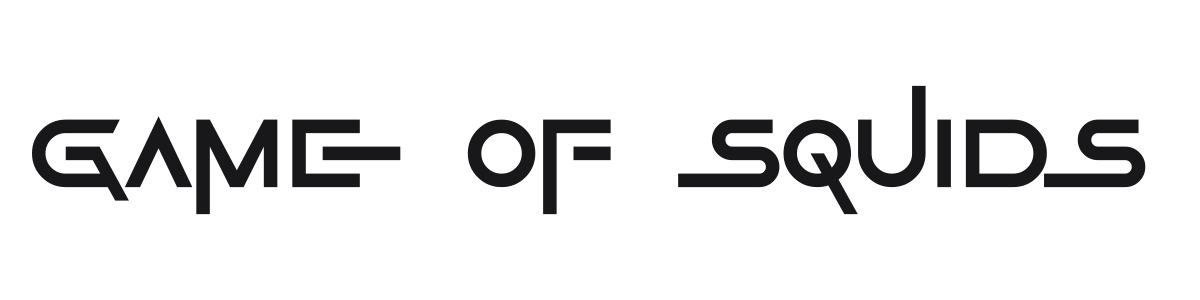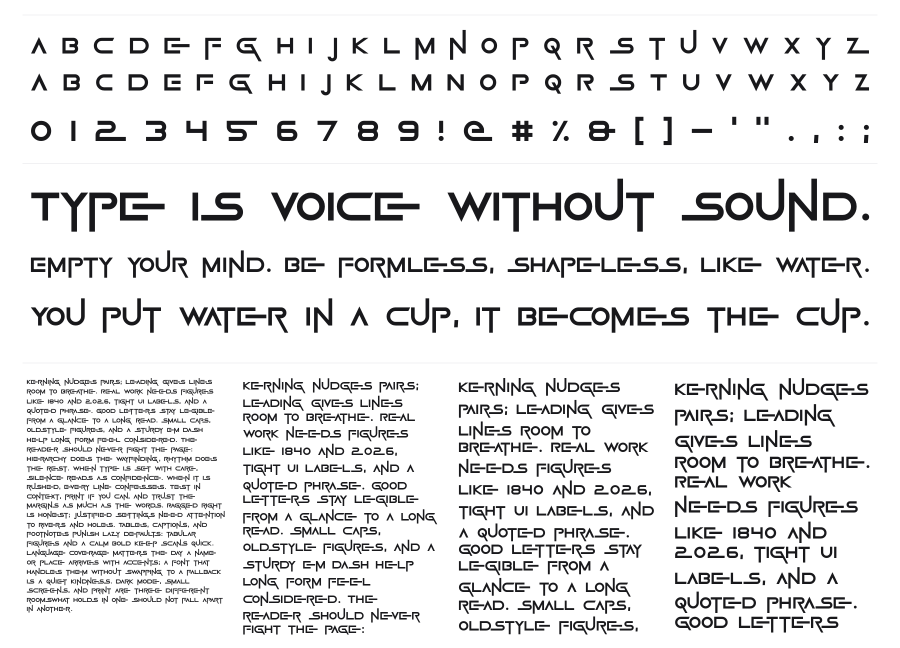
Game Of Squids
Game Of Squids is a bold geometric display font inspired by the logo of the Squid Game Netflix series. Its angular letter construction blends Korean typographic influence with Latin forms, punctuated by deliberate cutaway notches and flat terminals that give it a tense, stylized edge. It packs a strong graphic personality into posters, titles, and fan-made content.